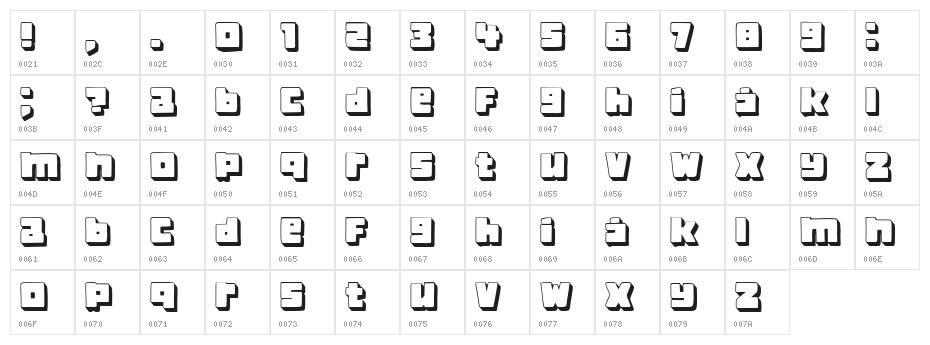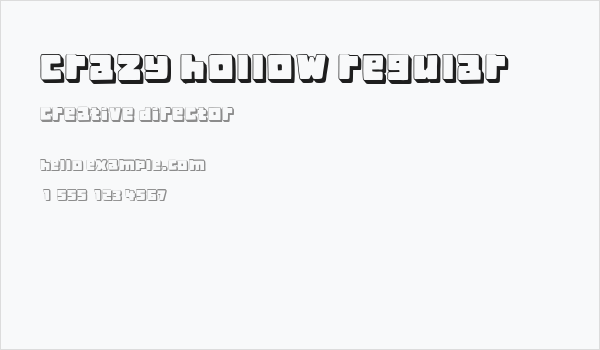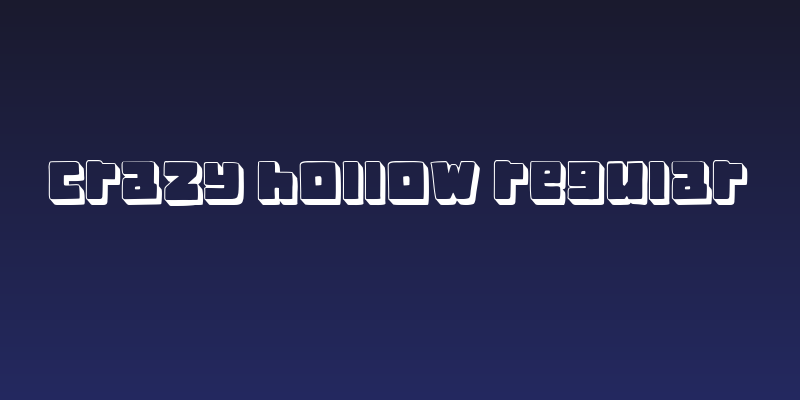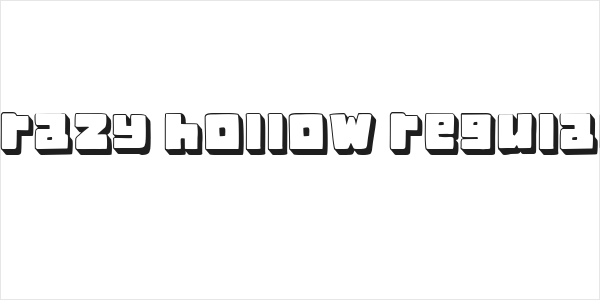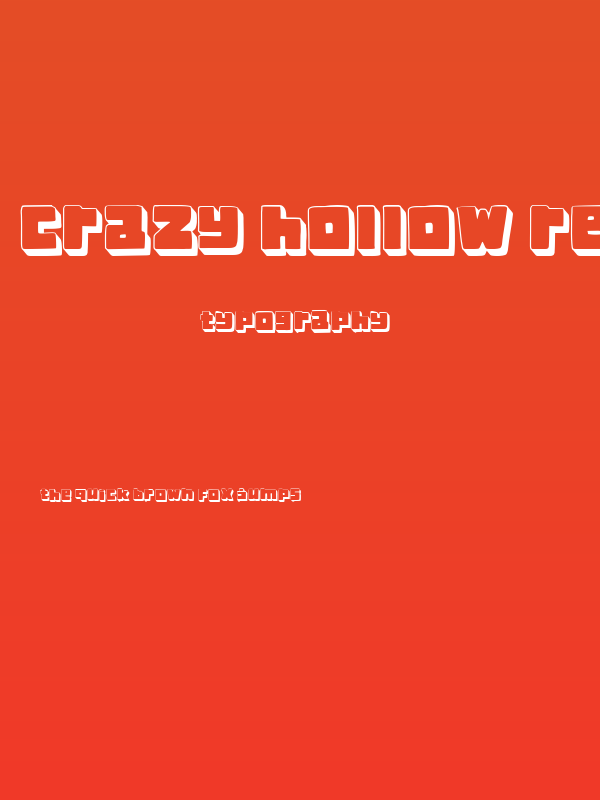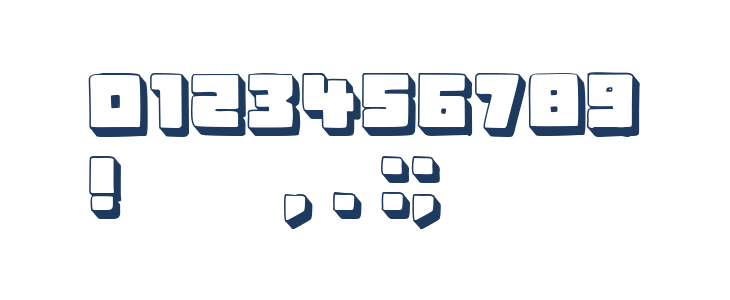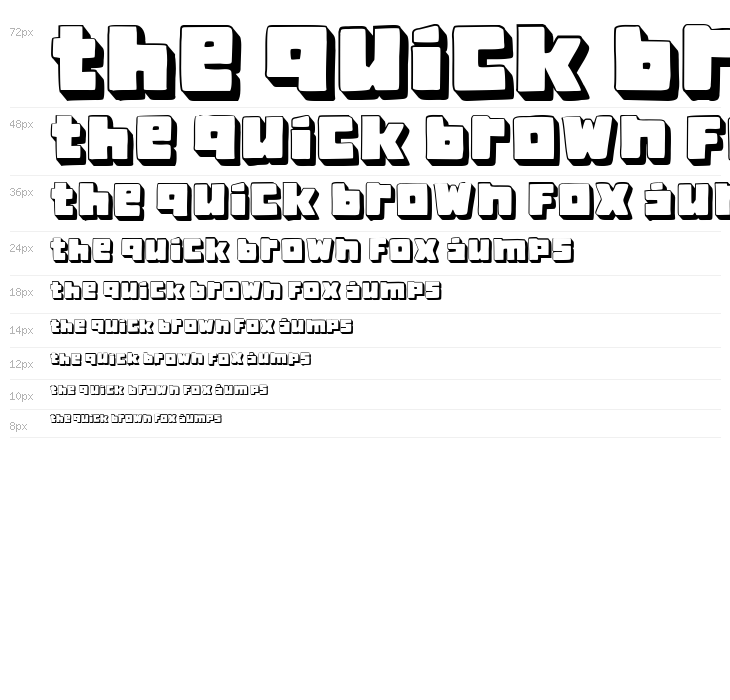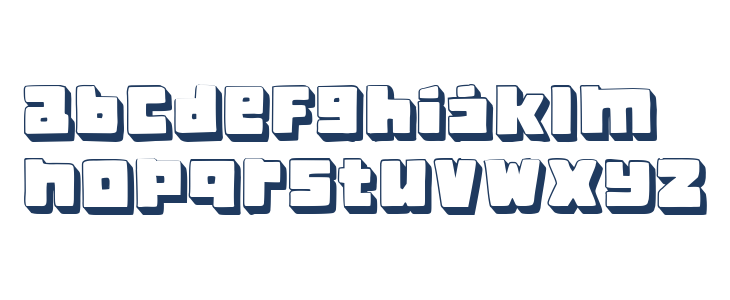
Crazy Hollow Regular Font
Crazy Hollow Regular Description
This font features a bold, playful design with a hollow interior, giving it a unique, eye-catching appearance. The characters are blocky and geometric, with a three-dimensional effect created by the shadowing on the right side. The uppercase and lowercase letters maintain a consistent style, with rounded edges and a uniform thickness. Numbers and special characters follow the same design principles, ensuring a cohesive look across all elements. This font's distinct style makes it ideal for projects that require a fun and dynamic visual impact.
| Overall Style | Playful, Modern |
| Proposed Projects | Ideal for children's book covers, playful branding, posters, and event invitations. |